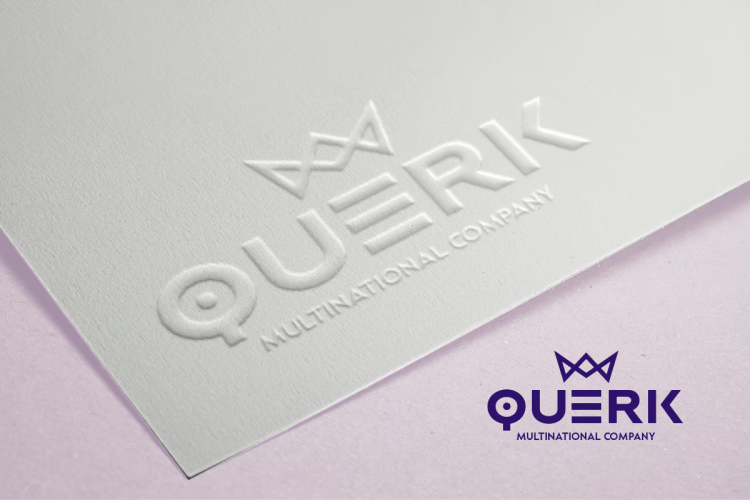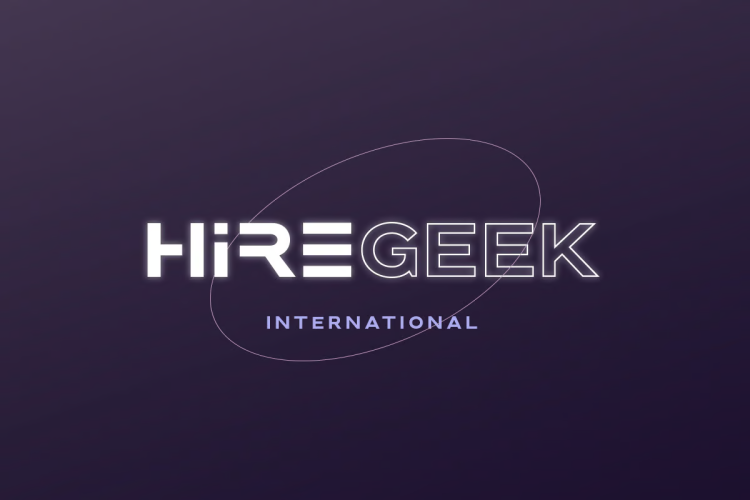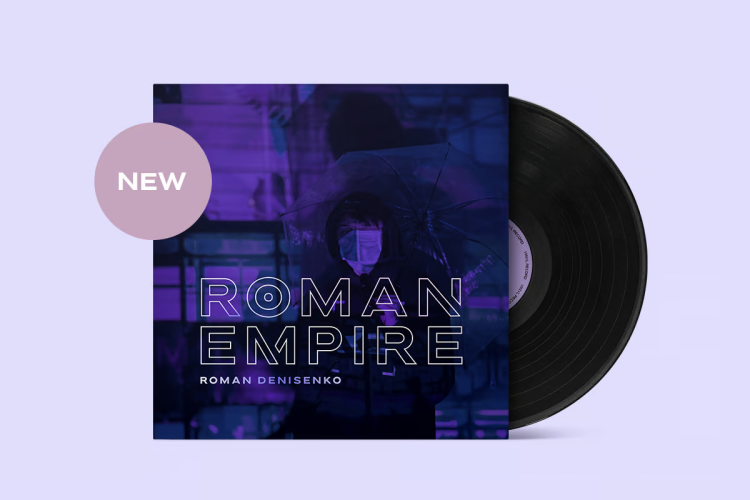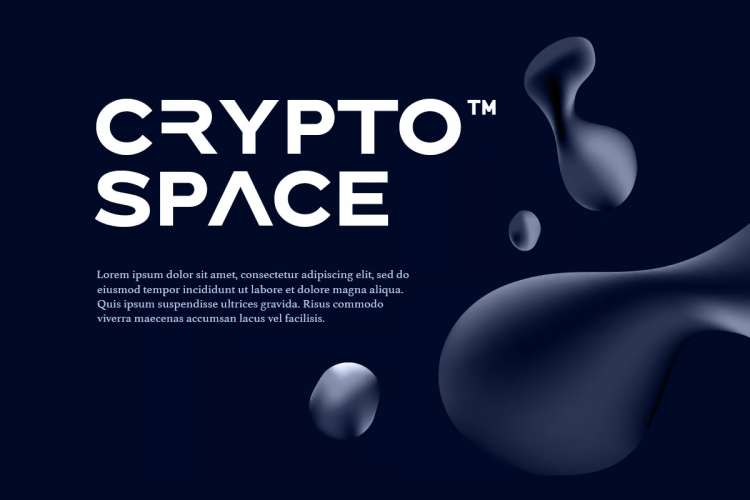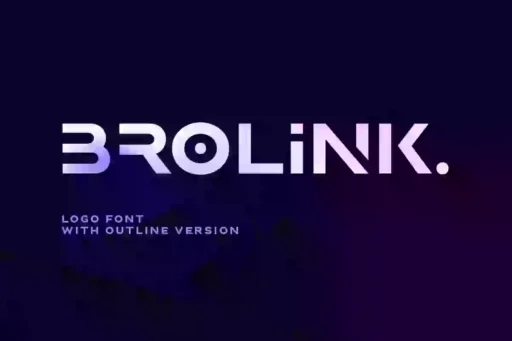
Brolink Font
Brolink is a modern font of sans type with bold and wide appearance of letters, especially the lower case which will give a sci-fi touch to your design. This font is suitable for any usage including logo design. This also means that you can use both the upper case and lower case of your letters to make your logo more legible. This font also has the outline style!
Brolink Font is a Sans Serif Fonts font that brings a professional and versatile look to your projects. Brolink is a modern font of sans type with bold and wide appearance of letters, especially the lower case which will give a sci-fi touch to your design.